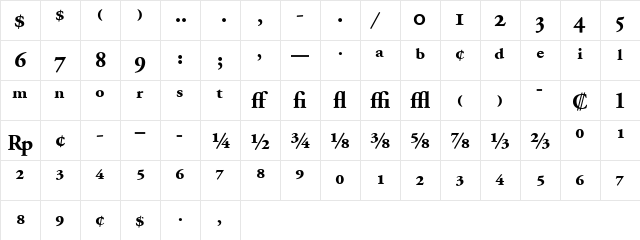
AGaramondExp Bold Regular
Design Context for AGaramondExp Bold Typeface
AGaramondExp Bold takes a measured approach to typography — its balanced proportions and neutral character make it a reliable workhorse for both digital and print work. Its bold stroke weight gives it real presence on the page.